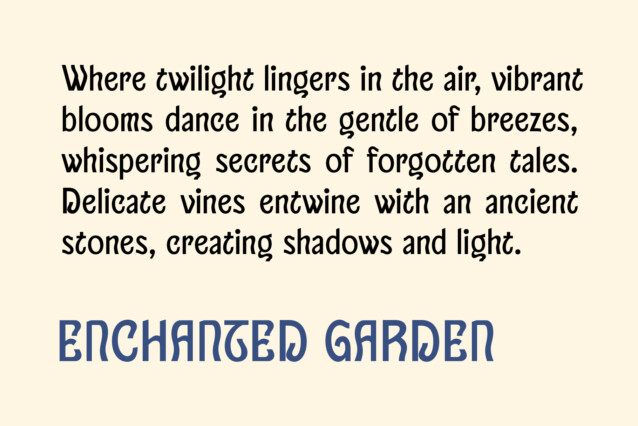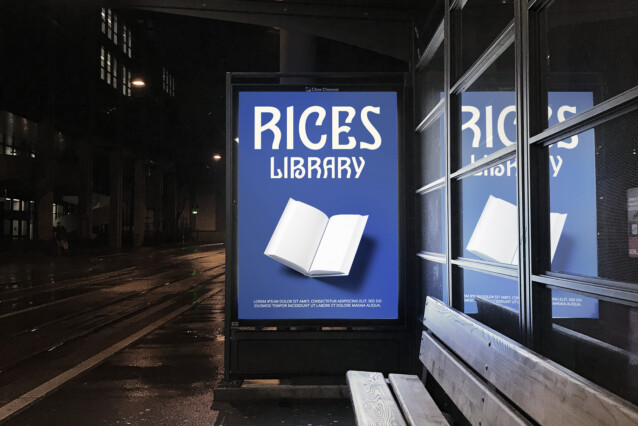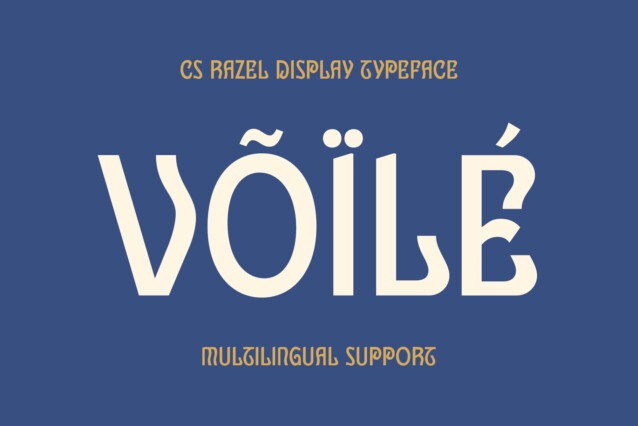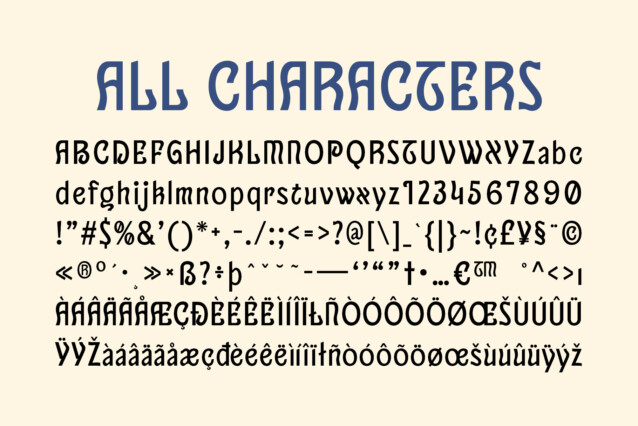
CS Razel Font
CS Razel Font is a stunning display sans-serif font that effortlessly blends the flowing, organic curves of Art Nouveau with the clean simplicity of modern sans-serif design. The result is a harmonious, refined typeface that embodies beauty, elegance, and artistic flair. Its intricate yet graceful details make it an ideal choice for projects that prioritize aesthetics and artistic expression.